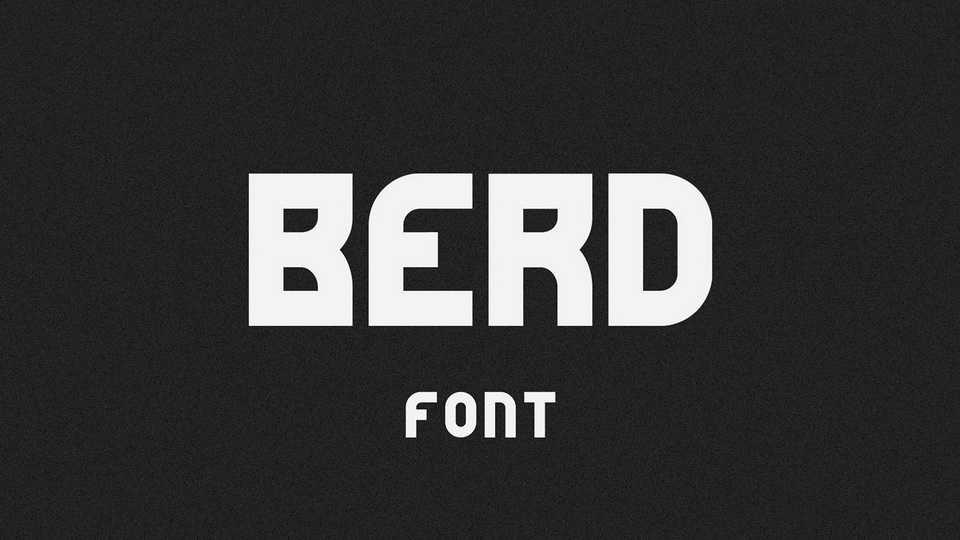
Download Berd font, a bold and strong display typeface based on simple geometric shapes. With its solid look Berd font is perfect for poster designs, movie titles, logotypes, packaging etc.
Designer: Zakar Kerdikoshvili